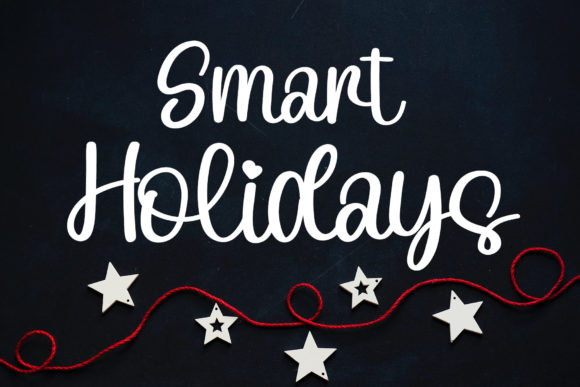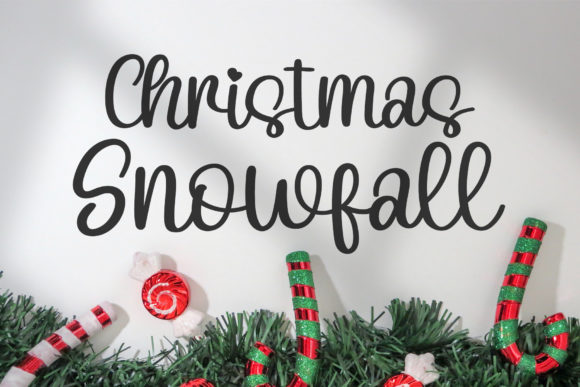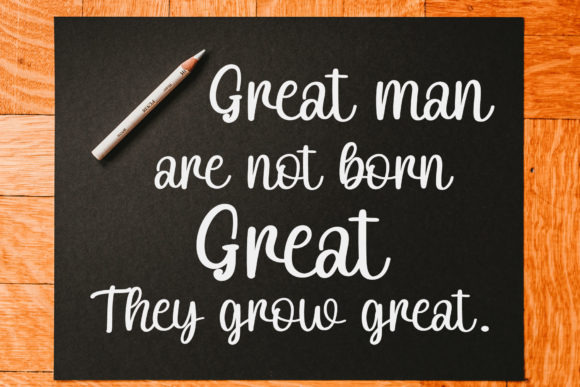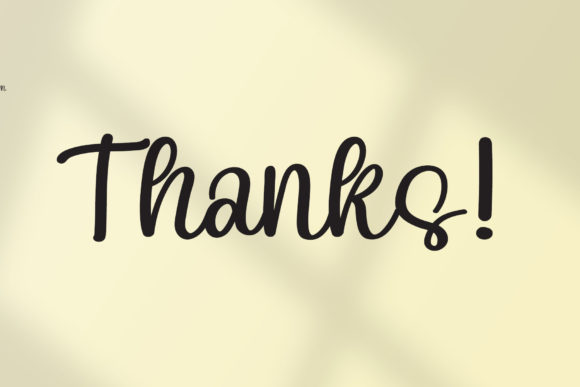
Introducing Grinchy Font: The Perfect Handwritten Touch for Your Designs
Are you looking for a font that exudes charm and elegance? Look no further than Grinchy Font! This beautiful handwritten font is perfect for adding a personal touch to your designs, and its versatility makes it suitable for a wide range of projects. In this article, we’ll explore the features and benefits of Grinchy Font, and show you how to make the most of this stunning font in your designs.
What is Grinchy Font?
Grinchy Font is a modern handwritten font that feels equally charming and elegant. Its unique and flowing script makes it perfect for designs that require a personal touch. Whether you’re creating wedding invitations, thank you cards, quotes, greeting cards, logos, or business cards, Grinchy Font is the perfect choice.
Key Features of Grinchy Font
- Handwritten touch: Grinchy Font has a beautiful handwritten touch that adds a personal and emotional feel to your designs.
- Elegant and charming: The font’s unique and flowing script makes it perfect for designs that require an elegant and charming touch.
- Versatile: Grinchy Font is suitable for a wide range of projects, including wedding invitations, thank you cards, quotes, greeting cards, logos, and business cards.
- Easy to read: Despite its handwritten nature, Grinchy Font is easy to read and understand, making it perfect for designs that require a clear and concise message.
Benefits of Using Grinchy Font
Using Grinchy Font in your designs can have numerous benefits. Here are a few:
- Adds a personal touch: Grinchy Font’s handwritten touch adds a personal and emotional feel to your designs, making them more relatable and engaging.
- Creates a unique look: Grinchy Font’s unique and flowing script makes it perfect for designs that require a distinctive look.
- Saves time: With Grinchy Font, you can create beautiful designs in no time. Its ease of use and versatility make it a great time-saving tool.
How to Use Grinchy Font in Your Designs
Using Grinchy Font in your designs is easy! Here are a few tips to get you started:
- Pair it with other fonts: Grinchy Font pairs well with other fonts, so feel free to experiment with different combinations to create a unique look.
- Use it for headings and titles: Grinchy Font is perfect for headings and titles, where its elegant and charming touch can really shine.
- Add some flair: Use Grinchy Font to add some flair to your designs. Its handwritten touch makes it perfect for adding a personal and emotional feel to your work.
Design Ideas Using Grinchy Font
Grinchy Font is versatile and can be used in a wide range of designs. Here are a few ideas to get you started:
- Wedding invitations: Grinchy Font is perfect for wedding invitations, where its elegant and charming touch can really shine.
- Thank you cards: Use Grinchy Font to create beautiful thank you cards that add a personal touch to your gifts.
- Quotes and posters: Grinchy Font is perfect for quotes and posters, where its elegant and charming touch can really make an impact.
- Greeting cards: Use Grinchy Font to create beautiful greeting cards for special occasions.
- Logos and branding: Grinchy Font can be used to create unique and memorable logos and branding materials.
- Business cards: Use Grinchy Font to create professional and elegant business cards that make a great impression.
In conclusion, Grinchy Font is a beautiful and versatile handwritten font that feels equally charming and elegant. Its unique and flowing script makes it perfect for designs that require a personal touch. With its ease of use and versatility, Grinchy Font is a great addition to any designer’s toolkit. Whether you’re creating wedding invitations, thank you cards, quotes, greeting cards, logos, or business cards, Grinchy Font is the perfect choice.